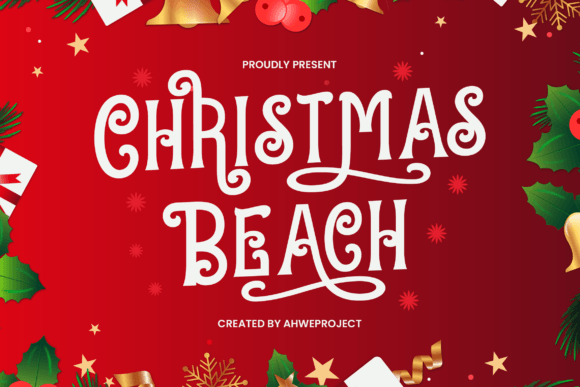
Christmas Beach: A Classy Display Font for Winter Break Creations
Fonts play a crucial role in visual communication, shaping the tone and style of any design. Whether you're creating holiday marketing materials, festive invitations, or winter-themed content, the right typeface can make all the difference. Enter Christmas Beach, a display font that combines elegance with a touch of seasonal charm. This article explores why this font could be a valuable addition to your creative toolkit, how it can enhance your projects, and who might benefit most from using it.
Elegance Meets Festivity
Christmas Beach is not just another holiday font; it's a carefully crafted display typeface designed to evoke warmth, joy, and sophistication. Its ornate details and graceful curves give it a classic, high-end look while maintaining a distinctly wintery vibe. Unlike more casual or overly playful fonts often used during the holidays, Christmas Beach offers a refined aesthetic that works well in both digital and print formats.
This makes it particularly appealing for professionals such as marketers, designers, bloggers, and small business owners who want their holiday messages to stand out without appearing cluttered or unprofessional. The font's balance between festivity and class ensures it fits into a wide range of contextsâfrom product packaging to website headers and promotional banners.
Who Can Benefit Most?
- Graphic Designers: Those working on holiday campaigns or client projects will appreciate the fontâs versatility and visual impact.
- Marketing Professionals: Creating compelling ads, email newsletters, or social media posts becomes easier with a font that commands attention and feels trustworthy.
- Small Business Owners: If you're running a seasonal store, café, or boutique, this font can elevate your branding and help attract customers.
- Bloggers and Content Creators: Use it to craft eye-catching titles for blog posts, YouTube videos, or Instagram stories related to the winter season.
- Event Planners: From holiday parties to New Year's events, Christmas Beach adds a touch of glamour to invitations and signage.
Why PUA Encoding Matters
One of the standout features of Christmas Beach is its support for PUA encoding. For those unfamiliar, PUA stands for Private Use Area, which allows the font to include special glyphs, ligatures, and swashes beyond the standard character set. This means you donât need advanced font software or additional tools to access these decorative elementsâeverything is available through your keyboard or font panel.
The ease of use provided by PUA encoding is a game-changer for creatives. It eliminates the frustration of missing characters or inconsistent rendering across different platforms. You can confidently incorporate flourishes and stylistic variations into your designs knowing theyâll display correctly, whether viewed on a desktop, mobile device, or printed material.
Real-World Applications
Letâs consider some practical scenarios where Christmas Beach could shine:
- Seasonal Branding: Imagine launching a new line of handmade gifts or holiday-themed products. Using Christmas Beach in your logo or packaging instantly conveys a sense of luxury and celebration.
- Print Materials: Brochures, posters, and flyers for winter events or sales promotions gain a professional edge when styled with this elegant font.
- Digital Marketing: Social media graphics, email headers, and landing pages become more engaging with a typeface that exudes confidence and charm.
- Personal Projects: From holiday cards to custom calendars, this font brings a personal yet polished touch to your creations.
Enhancing Creativity and Communication
Choosing the right font isnât just about aestheticsâit also affects how your message is perceived. Christmas Beach helps you communicate warmth, professionalism, and style simultaneously. It's especially effective when paired with minimalist layouts, allowing the text to take center stage without overwhelming the viewer.
For instance, if you're designing a holiday newsletter for a nonprofit organization, the font can convey generosity and goodwill without being too kitschy. Similarly, educators planning a winter school event can use it in announcements to create excitement among students and parents alike.
How to Use Christmas Beach Effectively
- Pair it with Complementary Fonts: To maintain readability, pair Christmas Beach with a clean sans-serif or serif body font. Think of it as a headline or title font that draws attention, while supporting text keeps the message clear.
- Use Sparingly: Given its ornate nature, it's best suited for short phrases or key headings rather than long blocks of text. Overuse may reduce legibility and dilute the overall design impact.
- Experiment with Color: While traditionally associated with red and green, this font looks stunning in gold, silver, or even monochrome schemes. Try subtle gradients or outlines to add depth.
Whether you're a seasoned designer or a hobbyist experimenting with typography, this font provides a practical solution for standing out during the holiday season. By choosing a font that reflects both professionalism and personality, you're better positioned to connect with your audience and achieve your creative goals.